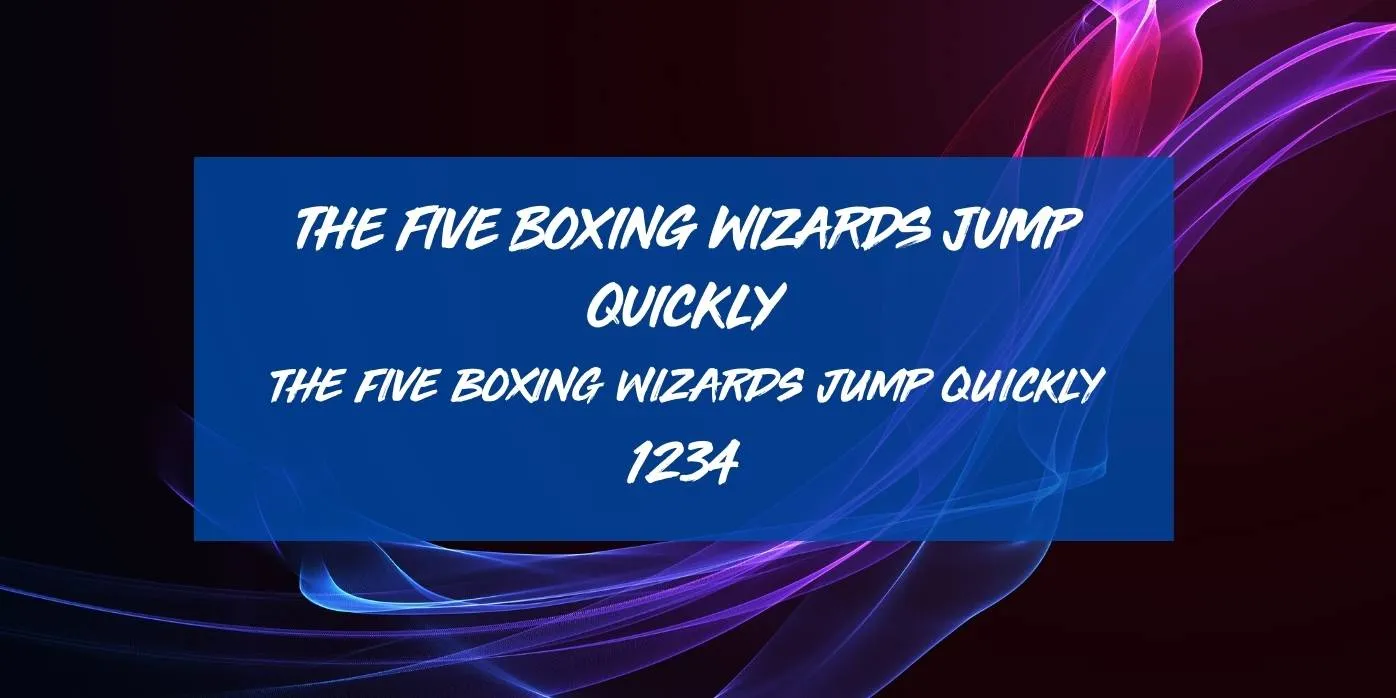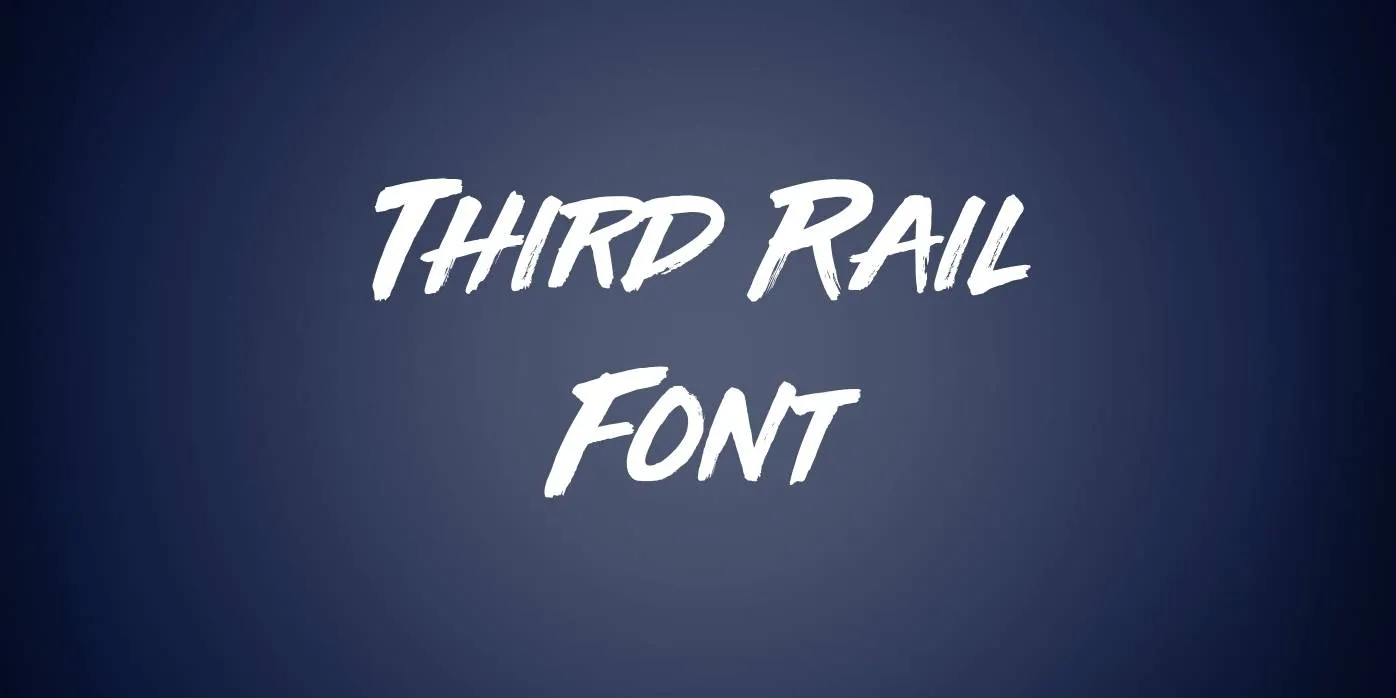
Third Rail Font
Third Rail Font belongs to the script family and was designed by BLKBK Fonts.  The letters in this font are all capitalized and have a very sharp appearance. This makes it perfect for headlines or any text that needs to be highly visible. This awesome font is available in both regular and bold weights. This font style is perfect for those who are in search of a classic and timeless look.